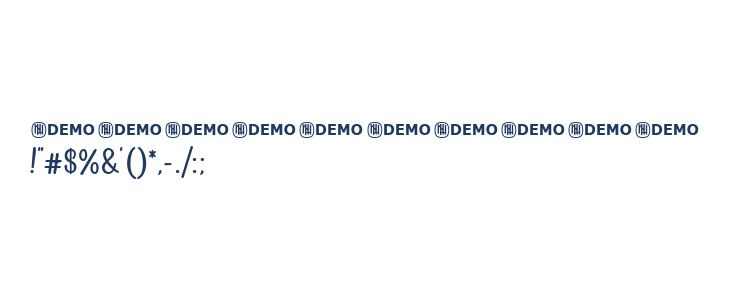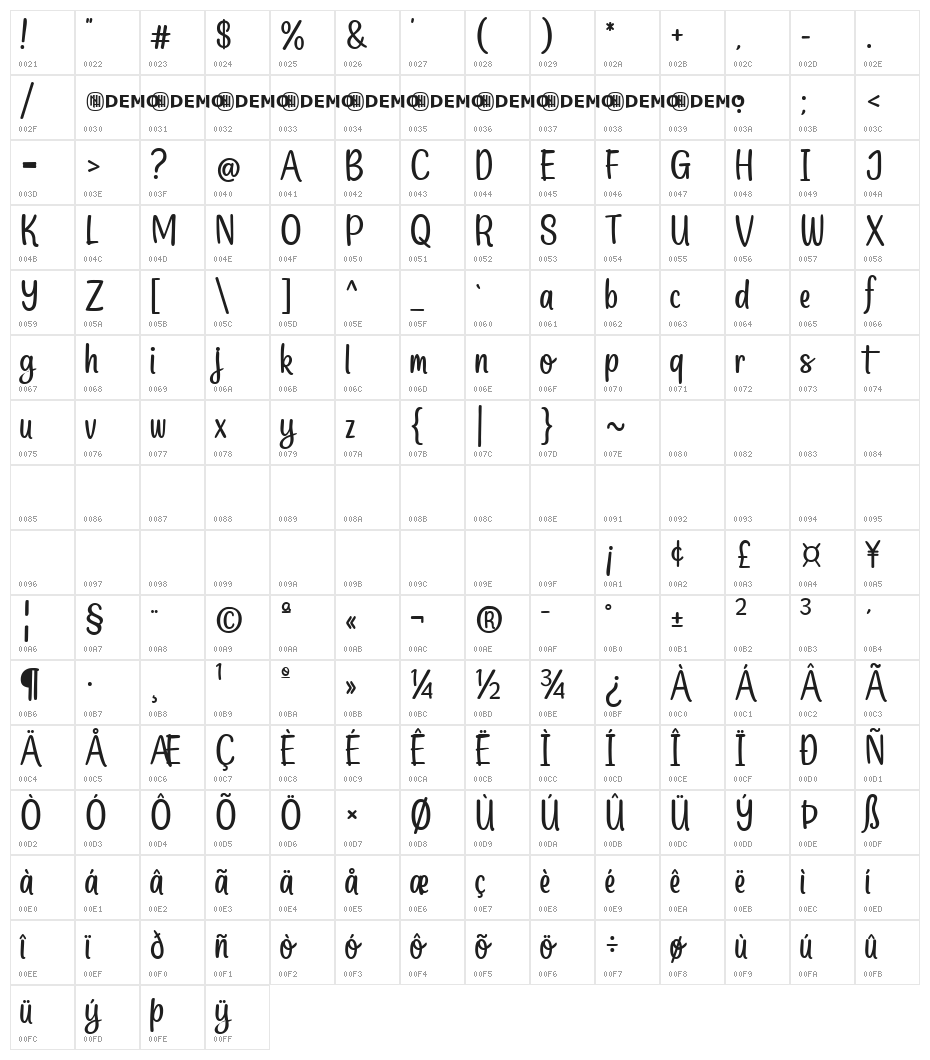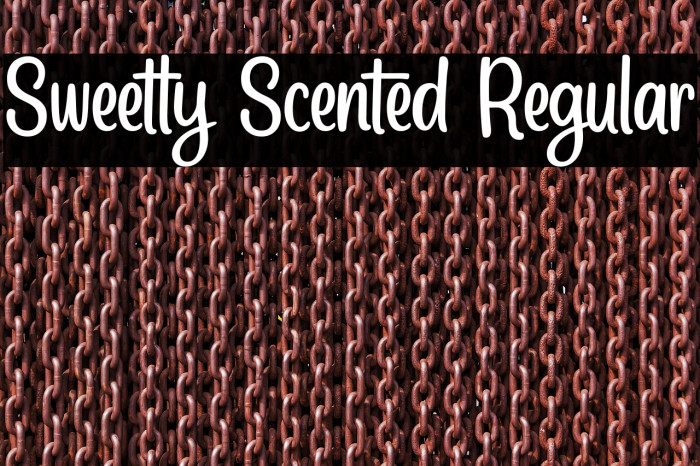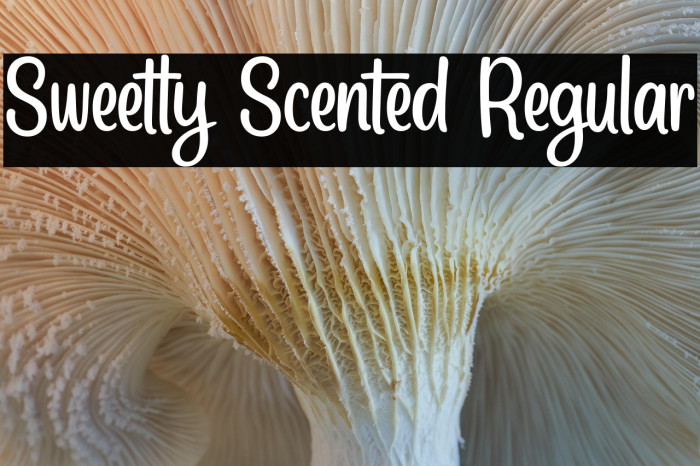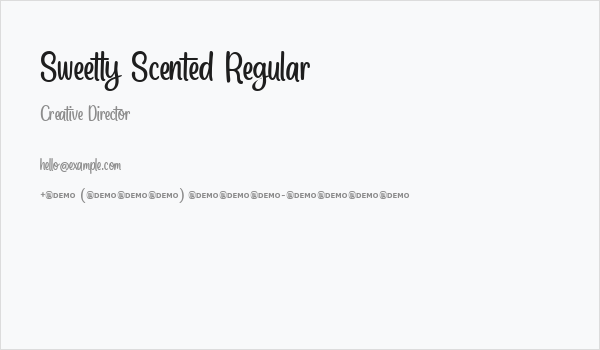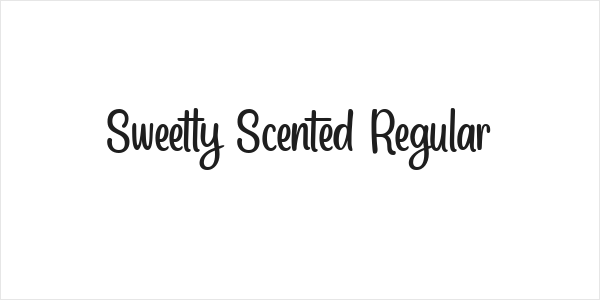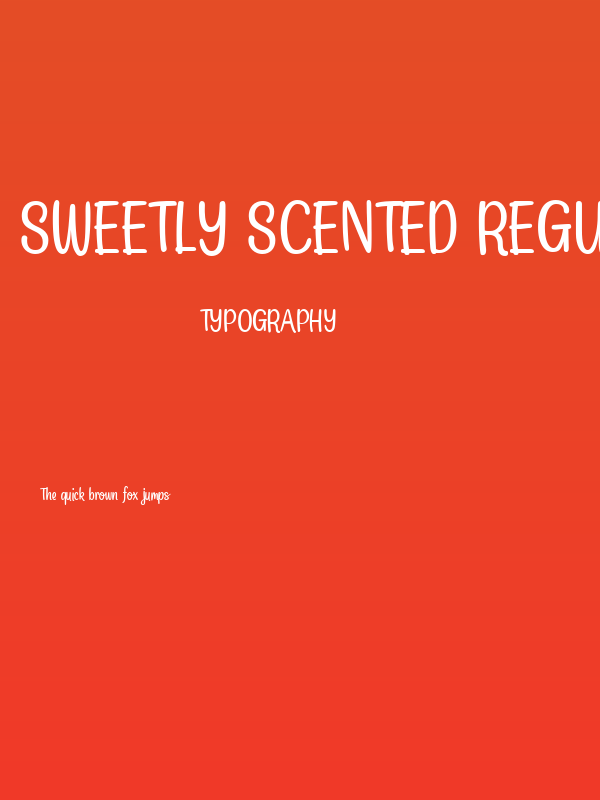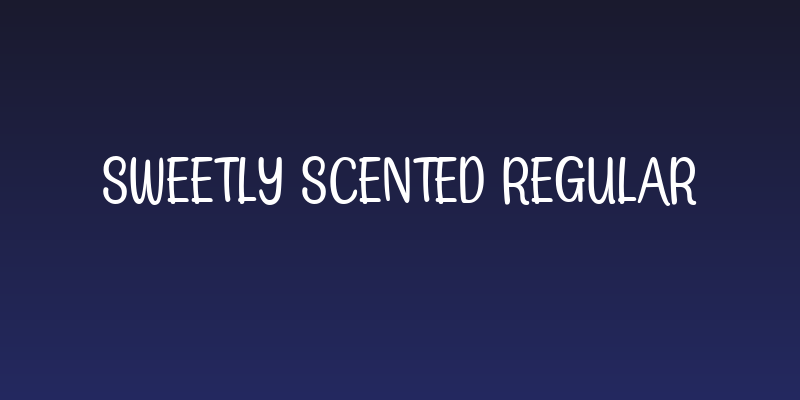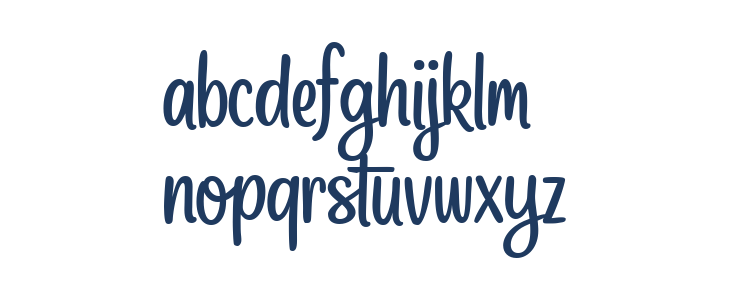
Sweetly Scented Regular Font
Sweetly Scented Regular Description
This font features a playful and whimsical handwritten style, characterized by its smooth, flowing curves and slightly irregular strokes. The uppercase letters are bold and rounded, giving a friendly and approachable appearance. The lowercase letters maintain a consistent style, with a slight slant that adds to the casual, handwritten feel. The numbers and special characters are designed to match the overall aesthetic, ensuring a cohesive look across all text. This font is perfect for projects that require a personal touch, such as invitations, greeting cards, or playful branding materials.
| Proposed Projects | Ideal for invitations, greeting cards, playful branding, and personal projects. |